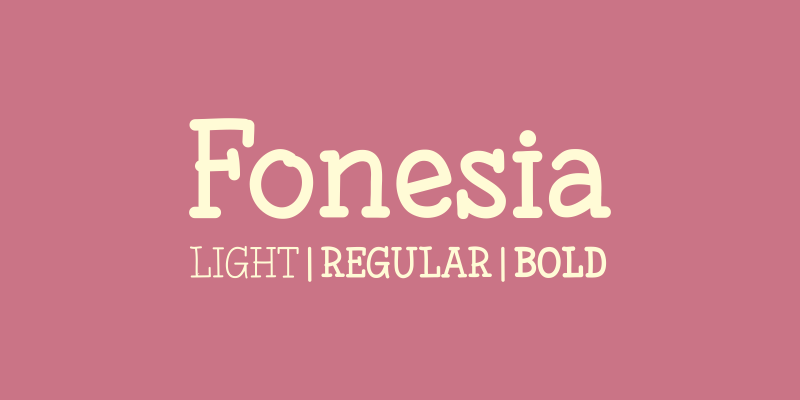
Font name: | Fonesia |
Author: | Locomotype |
Note by Locomotype | |
Fonesia was inspired by stroke of handwritten style. Available in three styles; light, regular and bold. |